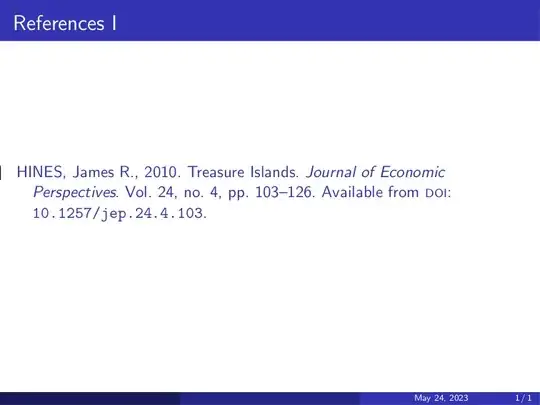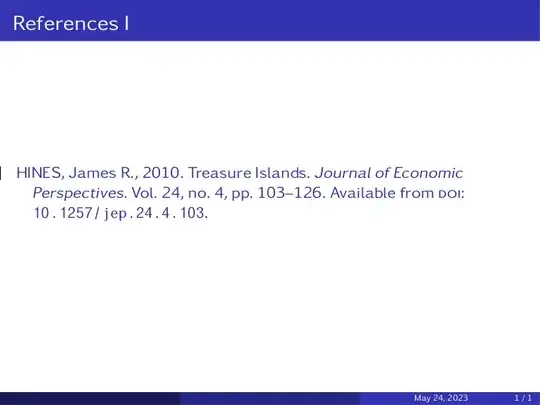
As before, I'm using beamer, biblatex and the ISO960 citation style (style=iso-authoryear). When a reference contains a DOI, the term ,,DOI`` itself is printed in small caps when using this style; in beamer, this uses a serif font that clashes with the default sans-serif font, and I would like to address this.
Is there a suitable sans-serif small-caps font, and if so, how do I ensure it gets used here?
Alternatively: I'm not too hung up on the use of small caps as such. Is there a way to use regular capital letters for the term ,,DOI`` instead?
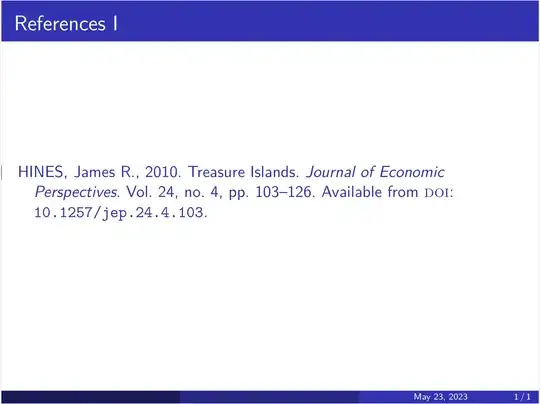
You could redefine the \mkbibacro macro to use a smaller font size instead of small caps:
Or you could use a font which does have sans serif small caps: